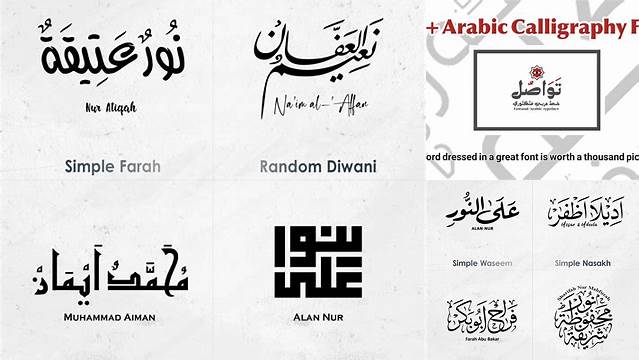
Top Arabic Calligraphy Fonts
Arabic calligraphy, with its graceful curves and intricate designs, is a visual art form that has captivated audiences for centuries. Choosing the right font is crucial to convey the intended message, whether you're designing a logo, a website, or a piece of art. In this guide, we'll explore the top Arabic calligraphy fonts, providing insights into their characteristics, uses, and how to choose the perfect font for your project.
What Makes a Font a Top Arabic Calligraphy Font?
Alright, let's dive into what really makes a font stand out in the world of top Arabic calligraphy fonts. It's not just about pretty curves and fancy flourishes, though those definitely help! A top-tier font has a few key ingredients. First off, legibility is key. No one wants to squint trying to figure out what the heck the words say. The best fonts balance artistic flair with clear readability, making sure your message gets across loud and clear. Then comes the artistic merit. Does the font have character? Does it reflect the beauty and tradition of Arabic script? This means looking at the style of the font – is it more traditional, modern, or something in between? The flow and harmony of the letterforms are also super important. Think about how the letters connect and interact with each other; a good font will have a natural, pleasing rhythm to it. Compatibility is also a factor; make sure it works well on different platforms and devices. And finally, consider the versatility. Can the font be used in various contexts, from headlines to body text? Does it come in different weights and styles to suit different needs? So, when we talk about the top Arabic calligraphy fonts, we are really looking at the ones that nail all these elements, combining technical excellence with artistic vision and a healthy dose of practicality.
The Best Arabic Calligraphy Fonts for Beginners
So, you're just starting out and thinking about playing around with top Arabic calligraphy fonts? Awesome! Welcome to a super cool world. The best fonts for beginners are generally those that strike a balance between beauty and simplicity. You want fonts that are easy to read and use, so you can focus on your design rather than struggling with overly complex letterforms. Fonts like Diwani, Ruq'ah, and Naskh are excellent starting points. Diwani is known for its elegant and flowing style, often used in official documents and invitations. It's got a graceful curve, making it a great choice for adding a touch of class. Ruq'ah, on the other hand, is more casual and informal, perfect for everyday writing. It's simple, yet stylish, and it's easy to learn to read. Finally, Naskh is a clear, easy-to-read script. It's the most common type of Arabic script used in books and print media, making it an excellent option if you're going to work on different projects. When you're starting, it's useful to find fonts with clear character sets and good spacing, making it less confusing to start with. Experiment with these basic styles. Each style has its unique features and different uses. This will give you a solid foundation and enable you to explore more complex fonts as you gain experience. Remember, the best way to learn is by practicing and exploring different options. So, start with something simple, have fun, and before you know it, you'll be creating beautiful designs in no time!
Free vs. Paid Arabic Calligraphy Fonts: Which to Choose?
Okay, so you're on the hunt for some top Arabic calligraphy fonts, but now you're wondering whether to go free or paid? Well, let's break it down, guys. Free fonts are definitely tempting; they're easy on the wallet, and there are tons of them out there. You can often find a good selection of free fonts on sites like Google Fonts or Dafont. The pros are obvious: you save money, and it's a great way to experiment with different styles without any financial commitment. However, there are also some potential cons to keep in mind. Free fonts might have limited character sets, which could be a problem if you need to use specific symbols or letters. You may also find that the quality isn't as high as with paid fonts. They might not be as well-designed or have as many weights and styles. Paid fonts, on the other hand, typically offer better quality, wider character sets, and more design options. They're usually created by professional typographers, so the design is generally much more polished and versatile. With paid fonts, you often get licensing that allows you to use them in a wider range of projects, including commercial ones. But, obviously, the downside is the cost. The price varies, depending on the font and the license, but it can be a significant investment, especially if you're just starting out. The best choice for you depends on your needs and budget. If you're working on personal projects or just want to experiment, free fonts are a great place to start. If you need something for commercial use and want the best quality and options, investing in paid fonts is usually the way to go.
Arabic Calligraphy Fonts for Logos: Making a Statement
Choosing the right font is super critical if you're designing logos, and it is especially important for top Arabic calligraphy fonts. Your font is a key part of your brand's identity, so you want to get it right! The best fonts for logos need to be strong, memorable, and reflect the values of the brand. You might want to pick fonts that are visually striking, but also easy to read at different sizes. Look for fonts that have a unique character that sets your brand apart, while ensuring they also have a timeless feel. Consider your target audience: if you're aiming for a more traditional audience, then you may want to consider classic styles like Diwani or Thuluth, which are often associated with elegance and authority. For a modern brand, you might lean towards a more contemporary style with clean lines and bold shapes. Make sure your logo works well in different contexts. It should look good on a business card, a website, and even on merchandise. Also, think about the message you want to convey. Is your brand playful, sophisticated, or something else? The font should convey this message and create a lasting impression. Don't be afraid to try out different font combinations. Mixing Arabic fonts with Latin fonts can create some super interesting designs, and it can add visual interest. Finally, always test your logo on various backgrounds and in different colors. This will help you make sure your logo is still impactful. Selecting the right font is a big decision, but the right font will bring your brand to life!
Modern Arabic Calligraphy Fonts: Embracing Contemporary Styles
If you're into the top Arabic calligraphy fonts, and you're a fan of modern design, then you're in for a treat. Modern Arabic calligraphy fonts are all about embracing contemporary styles, with a focus on innovation and fresh aesthetics. These fonts often feature clean lines, minimalist designs, and a touch of geometric abstraction. The goal is to blend tradition with modern design principles, to create something that's both familiar and fresh. You'll find a lot of variation in this category, ranging from fonts that are heavily influenced by traditional styles but with a modern twist, to fonts that are more experimental and abstract. Many modern fonts are designed with digital use in mind, making them perfect for websites, apps, and social media. Designers often use these fonts to create logos, headlines, and other marketing materials. When choosing a modern Arabic font, consider how it will interact with other design elements. Does it complement the overall aesthetic? Does it add a unique touch to your design? Also, pay attention to the readability of the font, even in smaller sizes. Even though the focus is on modern design, readability is still crucial. Modern Arabic calligraphy fonts can take your designs to the next level. By blending traditional influences with contemporary design, you can create something that is both visually striking and relevant to the modern world.
Traditional Arabic Calligraphy Fonts: Timeless Elegance
If you're aiming for that timeless elegance, then you'll want to explore traditional Arabic calligraphy fonts. These fonts are rooted in centuries of artistic tradition, reflecting the beauty and complexity of the Arabic script. Styles like Thuluth, Naskh, and Diwani are some of the best-known examples. Each style has its unique features, such as the graceful curves of Thuluth, the clear readability of Naskh, and the elegant flow of Diwani. The choice of a traditional font can add a sense of authenticity and sophistication to your design. These fonts are ideal for projects that call for a touch of historical context, like religious texts, invitations, and cultural projects. These fonts have been carefully developed over generations, ensuring that the letterforms are both aesthetically pleasing and functionally clear. They are crafted with the intention of enhancing the beauty of the written word and capturing the essence of the Arabic language. When selecting a traditional font, consider the specific style and its historical context. Understanding the cultural background of these fonts will help you create an authentic design. Traditional Arabic calligraphy fonts are a great option for adding a touch of history and elegance to your project.
Understanding Arabic Calligraphy Styles: A Quick Guide
Alright, so you want to know more about the different top Arabic calligraphy fonts and what makes them special? There are several styles of Arabic calligraphy, each with its own unique characteristics. The most common styles include Naskh, Thuluth, Diwani, Ruq'ah, and Kufi. Naskh is known for its clarity and readability, and it is often used in books and print media. Thuluth is known for its graceful curves and is often used in headlines and decorative elements. Diwani is known for its elegant and flowing style, and it is often used in official documents and invitations. Ruq'ah is a more casual and informal style, perfect for everyday writing. Finally, Kufi is one of the oldest styles, and it is known for its geometric and angular forms. Understanding these various styles is key to choosing the right font for your project. Each style has its own historical context and cultural significance. These styles also have different levels of formality and readability, so it is really important to match the style to the intended purpose. When you begin your research on these top Arabic calligraphy fonts, you'll be able to refine your approach and choose the right font for your project!
Arabic Calligraphy Fonts for Websites and Digital Design
Using top Arabic calligraphy fonts on websites and in digital designs can be super effective! When choosing a font for the digital world, a key factor is readability. You need to pick a font that's easy to read on a screen, even at different sizes and resolutions. You should also think about whether the font supports different languages and character sets if your site is multilingual. Some top Arabic calligraphy fonts are specially designed for digital use, meaning they're optimized for screen display. Look for fonts with clear letterforms, good spacing, and a variety of weights and styles. Consider how the font will work in different contexts. Is it for headlines, body text, or both? If you're designing a website, it is a good idea to consider how the font will affect the overall look and feel of your site. Does it match your brand's identity and visual style? Some fonts are better suited for modern, minimalist designs, while others are more appropriate for traditional or artistic sites. Make sure your chosen font is compatible with different browsers and devices, to ensure a consistent user experience. Also, it's a good idea to test your font on different screen sizes to make sure it looks great on any device. By choosing the right font and keeping these points in mind, you can create a visually appealing and effective website or digital design!
Pairing Arabic Calligraphy Fonts with Latin Fonts: Harmonious Combinations
Combining Arabic calligraphy fonts with Latin fonts can create some amazing designs! The key is to find fonts that complement each other. When you combine top Arabic calligraphy fonts with Latin fonts, you want to aim for harmony and balance. You can create visual interest by choosing fonts with different characteristics. One approach is to find fonts with similar weights or styles. If you use a bold, elegant Arabic font, you can pair it with a bold, clean Latin font. Another approach is to consider the contrast. You can pair a detailed and ornate Arabic font with a simple Latin font, or vice versa. The goal is to create a visually interesting contrast. Some designers love to mix styles. A modern Arabic font can be paired with a classic Latin font, or a traditional Arabic font can be paired with a contemporary Latin font. Try experimenting with different pairings to see what works best for your project. You also need to take into account the font's purpose and message. Does your project call for a formal or informal tone? The choice of font pairing should align with this overall message. Remember to test your combinations! Test out your chosen fonts on your designs. Make sure they look great together and are readable at different sizes. By experimenting with different pairings and considering the overall design, you can create some super striking and effective designs.
Tips for Choosing the Right Arabic Calligraphy Font
Choosing the right font among the top Arabic calligraphy fonts can feel like a big decision! First, define your project's purpose and audience. Are you designing a logo, a website, or something else? Think about who will see your design, and what message you want to communicate. Then, consider the readability and legibility of the font. Ensure your audience can easily read the font. Next, consider the style and character of the font. Does it fit the project's overall theme? Do you need a modern, traditional, or artistic font? Also, take into account the versatility of the font. Does it come in different weights and styles? Does it work well in different contexts? Pay attention to the technical aspects of the font. Does it support the characters and symbols you need? Is it compatible with the software you're using? It is also helpful to review font samples and mockups. Try the font out with your content to see how it looks. See how the font interacts with the other design elements. Finally, consider licensing and budget. Make sure you have the right license to use the font for your intended purpose, and stick within your budget. Choosing the right font is a process, but with careful planning and consideration, you can find the perfect font for your project.
The Best Arabic Calligraphy Fonts for Print Design
If you're focusing on print design, choosing the right font from the top Arabic calligraphy fonts becomes even more important! For print projects, the clarity and visual impact of your font are crucial. Consider the purpose of your design. Is it for a book, a poster, or a brochure? What's the target audience? Choose a font that is easy to read, especially if you're creating body text. Some fonts are designed specifically for print, and they work well in different sizes and resolutions. You can use different fonts for headlines and body text. A bolder, more decorative font can be used for headlines, while a clean, legible font works well for body text. When designing for print, think about how the font will look on the page. You can print out samples to see how the font interacts with the other design elements and how it appears in different sizes. In print design, it is also important to consider the quality of the font. A well-designed font will retain its clarity even at a larger size. It will also have a variety of weights and styles to suit different needs. So, for the best print design, select your top Arabic calligraphy fonts carefully, focusing on readability, style, and versatility. This will help you create designs that are both beautiful and effective!
Calligraphy vs. Typography: Understanding the Differences
Let's make sure we're all on the same page and talk about the differences between calligraphy and typography, especially when we're talking about top Arabic calligraphy fonts. Calligraphy is a visual art that involves the design and execution of letterforms by hand, using tools like pens, brushes, and ink. Calligraphers use their skills to create unique and beautiful letterforms that express artistic vision. Calligraphy is all about the unique strokes and flourishes that are specific to the artist. Typography, on the other hand, is the art and technique of arranging type to make written language readable, legible, and appealing. It involves the selection of fonts, typefaces, point sizes, and other factors. Typographers focus on how text looks. They make sure that the text is readable and works with the overall design. While calligraphy is about individual letterforms, typography is more about the overall design of text. When you use top Arabic calligraphy fonts you are blending these two concepts. The fonts themselves are often created with the same artistic principles as calligraphy, but they are designed to be used in digital and print media. The calligraphy is still there, but it's used in a way that is more accessible and practical. Each of these disciplines has its own role to play in the visual arts, but they both strive to create something that's both beautiful and functional. So, whether you're a calligrapher or a typographer, or someone who loves using fonts, understanding the differences between these disciplines can help you create better designs.
How to Install and Use Arabic Calligraphy Fonts on Your Computer
Alright, so you have downloaded your top Arabic calligraphy fonts and are ready to get started. First things first, you need to install them on your computer. The installation process can vary slightly depending on your operating system, but it's usually pretty straightforward. For Windows, you can simply right-click on the font file (usually in the .ttf or .otf format) and select "Install." The font will be added to your system, and you can then use it in your design software. On a Mac, you can double-click on the font file, and the Font Book application will open. From there, you can easily install the font by clicking the install button. Once the font is installed, it should appear in the font menus of your design programs, such as Adobe Photoshop, Illustrator, or Microsoft Word. Keep in mind that you might need to restart your design software for the new font to appear. From there, you can select the font and start typing or applying it to your existing text. If you're having trouble, make sure you have downloaded the font in a compatible format. If you have any problems, consult the documentation that comes with the font or look for online tutorials. With a little bit of effort, you'll be up and running with your top Arabic calligraphy fonts and ready to start creating beautiful designs.
Arabic Calligraphy Fonts for Invitations: Adding a Personal Touch
If you're working on invitations, using top Arabic calligraphy fonts can add a unique and personal touch. When designing invitations, you want the font to reflect the tone and style of the event. Use an elegant font for weddings or formal events. You may opt for a more relaxed font for birthday parties or casual gatherings. You also need to take into account the overall design of the invitation. Does the font match your invitation design? Does the font enhance the visual appeal of your invitation? And, most importantly, is the font easy to read? When choosing a font, think about the overall feel you want to achieve. Do you want something more traditional, modern, or artistic? Also, think about how the font will look on paper. Print out a sample to get a sense of how the text will appear. For invitations, it's useful to select fonts that are visually striking. Choose fonts that will make your invitation stand out. You can use a bold font for headings and a simple font for details. You can also experiment with font pairings to create a unique look. Choosing the right font is a key step in creating invitations. The font can help set the tone of your event. Using the right font is a great way to add a personalized touch to your invitations and create a memorable experience for your guests.
The Art of Kerning in Arabic Calligraphy Fonts
Let's talk about kerning, a crucial element in design. Kerning is the process of adjusting the space between individual characters in a font. In the world of top Arabic calligraphy fonts, kerning can make or break your design. Kerning is really important for readability and visual appeal. Poor kerning can make a design look clumsy and unprofessional. Proper kerning ensures that the text flows smoothly and is easy on the eyes. When you're using top Arabic calligraphy fonts, pay attention to how the characters interact with each other. Some letter combinations might look cramped or too far apart, and this is where kerning comes in. It allows you to adjust the spacing to create a balanced and harmonious text. Many design programs, like Adobe Photoshop and Illustrator, have kerning tools that you can use to make adjustments. The key is to pay close attention to the letterforms. Do they look right, or do they need a little bit of adjustment? So, when working with top Arabic calligraphy fonts, don't neglect the kerning. With just a few adjustments, you can create designs that look polished and professional.
Exploring the History and Evolution of Arabic Calligraphy Fonts
Let's dive into the history of top Arabic calligraphy fonts. The art of Arabic calligraphy has a long and rich history, dating back centuries. The development of Arabic calligraphy is closely connected with the spread of Islam, as the script was used to write the Quran. Over time, various styles of Arabic calligraphy evolved, each with its own unique characteristics. Styles like Kufi, Naskh, and Thuluth became prominent, and each style had its own purpose and aesthetic. For example, Kufi was one of the earliest styles, known for its geometric and angular forms. Naskh became a popular style for its clarity and readability, and it was used in books and print. Thuluth, with its graceful curves, became a favorite for headlines and decorative elements. The development of these styles reflects the cultural and artistic influences of the different regions where Arabic script was used. Over the centuries, calligraphy has evolved. With the advent of printing technology, Arabic script adapted to meet new design challenges, and new font styles emerged. Today, you'll find a huge selection of top Arabic calligraphy fonts. Each font carries a piece of history, reflecting the evolution of Arabic calligraphy and its ongoing influence on the world of design.
Digital Tools and Software for Working with Arabic Calligraphy Fonts
When you work with top Arabic calligraphy fonts, you'll probably want to know about the digital tools and software that can help you along the way. Many programs can be used for Arabic calligraphy design. Adobe Photoshop and Illustrator are popular for creating logos, graphics, and illustrations. Adobe InDesign is a great choice for creating layouts and typography-focused designs. These programs offer a wide range of features, including the ability to customize fonts, adjust spacing, and add special effects. For more specialized tasks, like creating intricate calligraphy, you can use software designed specifically for calligraphic art. These programs provide advanced features like pressure sensitivity and a range of calligraphy tools. You can also use vector graphics software like Inkscape to create and edit your calligraphy. These programs will give you more precise control over your design. The use of digital tools has transformed the way that people work with top Arabic calligraphy fonts. With the right tools and a little bit of practice, you can create amazing designs and explore the beauty of Arabic calligraphy in a whole new way!
Finding Inspiration for Arabic Calligraphy Font Designs
Need some inspiration for your designs using top Arabic calligraphy fonts? Look at the work of other designers. You'll find examples of calligraphy, typography, and graphic design. Explore design portfolios online. This can help you see different styles and approaches to using Arabic fonts. Another great source of inspiration is traditional Islamic art. Visit museums and galleries, and study the historical context of Arabic calligraphy. Look at old manuscripts, architecture, and decorative arts to get a sense of the beauty and complexity of Arabic calligraphy. Explore the work of other cultures. Look at calligraphy from around the world. This can help you develop new ideas. Experiment with different design techniques. Play with colors, textures, and compositions. Don't be afraid to think outside the box. You can experiment with different styles and fonts to create a unique look. And finally, use social media to connect with other designers. This is a great way to share ideas and get feedback. The more you explore, the more inspiration you'll find, which will help you with your top Arabic calligraphy fonts designs.
The Role of Arabic Calligraphy Fonts in Branding and Identity
Top Arabic calligraphy fonts play a crucial role in branding and identity. The right font can help define a brand's personality and values. It sets the tone for all visual communications. When choosing a font, consider the message of your brand. The font should reflect your brand's values and target audience. Think about the character and style of the font. Does it convey a sense of elegance, modernity, or tradition? Consider the versatility of the font. Can it be used in different contexts, such as a logo, a website, and marketing materials? Look at the font's consistency. Is it consistent across all of your brand's materials? A well-chosen font will help create a strong brand identity. It can also help make your brand more memorable and recognizable. The right font will help your brand communicate with its audience and create a lasting impression. So, make sure you choose the right font and create a strong visual identity. With top Arabic calligraphy fonts, you can elevate your brand and create a unique brand experience.
Customizing and Modifying Arabic Calligraphy Fonts
Do you want to customize or modify some top Arabic calligraphy fonts? In most design programs, you can customize fonts to fit your needs. You can adjust the size, spacing, and color of the font. You can use these tools to create your own unique designs. When you're customizing, you should be aware of licensing restrictions. Some fonts have restrictions. Ensure that you have the proper permissions before changing the font. You can also modify fonts using specialized software like FontLab Studio or Glyphs. These programs let you make more significant changes to the font's design, such as altering the shapes of the characters. If you're planning to make extensive changes, consider the overall design of the font. Does your modification fit the style of the font? You can also create your own unique font. You can design the font by hand, then use software to convert your design into a digital font. With a little bit of creativity, you can create custom fonts to suit your needs. So, with the right tools and a bit of know-how, you can customize and modify top Arabic calligraphy fonts to create amazing designs.
Legal Considerations: Licensing and Usage of Arabic Calligraphy Fonts
When using top Arabic calligraphy fonts, you need to know about the legal side of things, including licensing and usage. Licensing is crucial. Make sure that you have the right license to use the font for your project. Most fonts come with different types of licenses. The license will determine how you can use the font. For instance, some licenses only allow you to use the font for personal projects, and others permit commercial use. Be aware of the license restrictions. Some licenses might limit the number of times you can use the font or the types of projects you can use it for. When purchasing a font, read the licensing agreement very carefully. It will tell you the terms of use, and it will protect you from legal issues. Also, make sure that you own the font license. If you use a font that you don't have the right to use, you could face serious legal consequences. So, before using any top Arabic calligraphy fonts, make sure that you understand the licensing rules. Following these rules will help protect you and your work.
Resources and Websites for Finding Arabic Calligraphy Fonts
Looking for top Arabic calligraphy fonts? There are tons of resources and websites you can check out. Many websites offer free fonts, like Google Fonts and Dafont. They are a good place to start if you are on a budget. Many websites offer premium fonts. These websites offer high-quality fonts with a wider range of options. You can find different styles of Arabic calligraphy. Look at the font marketplaces, like MyFonts and Creative Market. They feature fonts from many designers. Consider checking out design blogs and forums. These websites frequently provide lists of resources. Also, look at the websites of individual font designers and foundries. These websites often have the newest fonts available. When you look for fonts, keep these resources in mind. This will help you find what you need. With a little bit of research, you can find the best top Arabic calligraphy fonts for your project.
The Future of Arabic Calligraphy Fonts: Trends and Innovations
What's next for top Arabic calligraphy fonts? There's a lot of exciting stuff happening, and a few cool trends are starting to emerge. One of the biggest trends is the blending of tradition and modernity. Designers are creating fonts that combine the elegance of traditional styles with the clean lines of modern design. This blend is perfect for today's design needs. With the rise of digital design, many fonts are designed specifically for use on screens. This includes optimizing fonts for readability and different devices. Also, there's more experimentation with new techniques and technologies. Expect to see the use of artificial intelligence in font design and more. As for innovations, expect to see more multilingual fonts. This will help you create designs that can be used in a variety of languages and cultures. There will be more fonts that support a wider range of characters and symbols. The future is bright for top Arabic calligraphy fonts. With all of these changes, we'll see amazing designs and innovation for years to come.
Mastering the Art of Arabic Calligraphy: Beyond Fonts
Let's talk about mastering the art of Arabic calligraphy, which goes far beyond choosing the right top Arabic calligraphy fonts. While fonts are a key element, true mastery involves understanding the art form's rich history, techniques, and cultural significance. You should learn the traditional calligraphy styles. Familiarize yourself with the various styles like Naskh, Thuluth, and Diwani. You should also learn the tools and techniques of calligraphy. Use different pens, inks, and papers. Practice your strokes, and understand the rules of the Arabic script. Study the masters of calligraphy. Examine the work of famous calligraphers. You should also practice and be patient. Calligraphy takes a lot of practice. Start with the basics. Don't be afraid to experiment. Experiment with different styles, tools, and designs. Practice regularly to build your skills. Calligraphy is a form of art, so creativity is a key factor. Embrace your own artistic vision. By going beyond the use of fonts and diving into the art itself, you'll gain a deeper appreciation and understanding of Arabic calligraphy.
Common Mistakes to Avoid When Using Arabic Calligraphy Fonts
When working with top Arabic calligraphy fonts, there are a few common mistakes that you should avoid. First, don't pick a font without considering your project's purpose and audience. Make sure the font fits the style. Second, don't overlook readability. If your audience can't read the font, they won't get your message. Thirdly, don't ignore the importance of kerning. Bad kerning can make your design look bad. Avoid using too many different fonts. Pick one or two fonts that match the style. Also, don't forget to test your design on different devices. If the font doesn't look good on different devices, you'll need to make some changes. Another mistake is not respecting the historical context. Don't use a font in a way that is not culturally appropriate. Try and avoid these mistakes, so you can create a beautiful design using the top Arabic calligraphy fonts that you pick.
How Arabic Calligraphy Fonts are Used in Different Industries
Top Arabic calligraphy fonts have a wide range of uses in different industries. In the world of branding and marketing, these fonts are used to create logos, packaging, and advertisements. The font will help to establish a brand's identity. In publishing and media, top Arabic calligraphy fonts are used in books, magazines, and newspapers. In the art and design industry, these fonts are used to create unique and beautiful works of art. The font is often used for special events. Wedding invitations and event promotions often feature Arabic calligraphy fonts to give a touch of elegance. Also, in the fashion and luxury goods industries, top Arabic calligraphy fonts are often used in branding and design, to create a sense of prestige. Even in the technology and software industries, these fonts can be seen in apps and websites to give a unique touch. So, it's safe to say that these fonts can be used in many industries. The choice of font will depend on the brand's identity.
The Impact of Arabic Calligraphy Fonts on Cultural Identity
Top Arabic calligraphy fonts have a huge impact on cultural identity. Arabic calligraphy isn't just about pretty letters; it's a powerful symbol of the Arabic language and culture. It helps create a sense of pride and belonging. The script is used to create visual expressions of cultural identity. You'll see these fonts in everything from religious texts to street art, which helps maintain tradition. Calligraphy is a means of preserving cultural heritage. The art form has been passed down through generations. The use of specific calligraphy styles often carries cultural significance. The style chosen for a project can reflect the cultural values and traditions of the community. It provides a link to the past. By preserving and promoting the art of Arabic calligraphy, you can keep the cultural identity alive. The fonts connect people with their roots. With the use of these fonts, you can create a sense of unity and pride. This helps keep the culture strong.